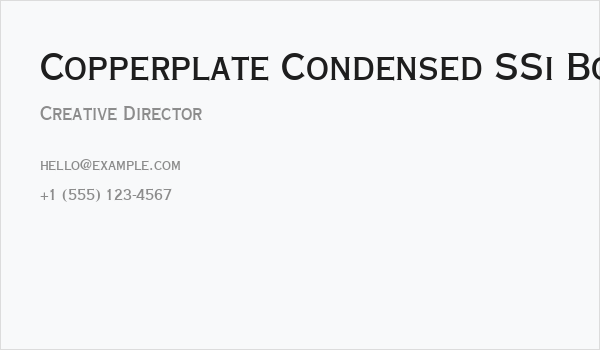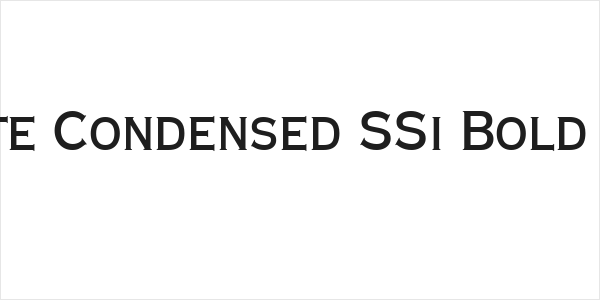
Copperplate Condensed SSi Bold Condensed Font
Copperplate Condensed SSi Bold Condensed Description
This font features a clean and professional appearance with a classic serif style. The characters are bold and condensed, giving a strong and authoritative presence. The uppercase letters are prominent and well-defined, while the lowercase letters maintain a consistent style that complements the overall design. The numerals are clear and easy to read, making them suitable for various applications. Special characters are included, providing versatility for different types of content. The font's condensed nature allows for efficient use of space, making it ideal for headlines and titles.
| Proposed Projects | Ideal for use in corporate branding, editorial headlines, book covers, and formal invitations. |